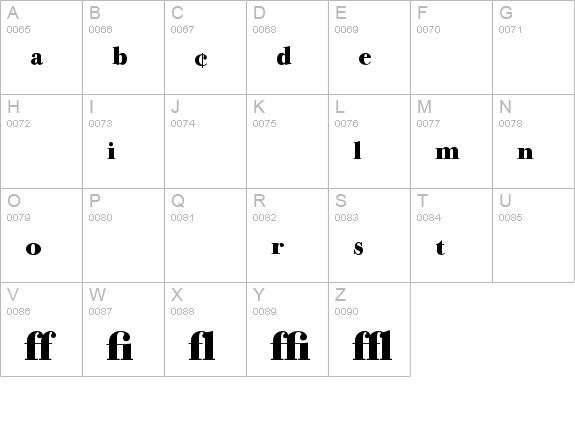
Bodoni Old Face BE Bold Expert is a strong, high-contrast variant in the Bodoni typeface family \xE2\x80\x94 well suited to headlines, attention-grabbing titles, and strong calls-to-action.
Bodoni Old Face BE Bold Expert font is a striking and elegant typeface that exudes sophistication and timeless beauty. With its bold weight and expertly designed letterforms, this font commands attention and makes a strong statement in any design project. The high contrast between thick and thin strokes adds a touch of drama and flair, making it ideal for headlines, titles, and branding materials. What sets Bodoni Old Face BE Bold Expert font apart is not only its classic appeal but also its accessibility. This font is available for free download at FontsMarket.com, allowing designers and creatives to easily incorporate its charm and style into their work without any cost. Whether used in print or digital media, Bodoni Old Face BE Bold Expert font is sure to elevate any design with its timeless and sophisticated aesthetic.